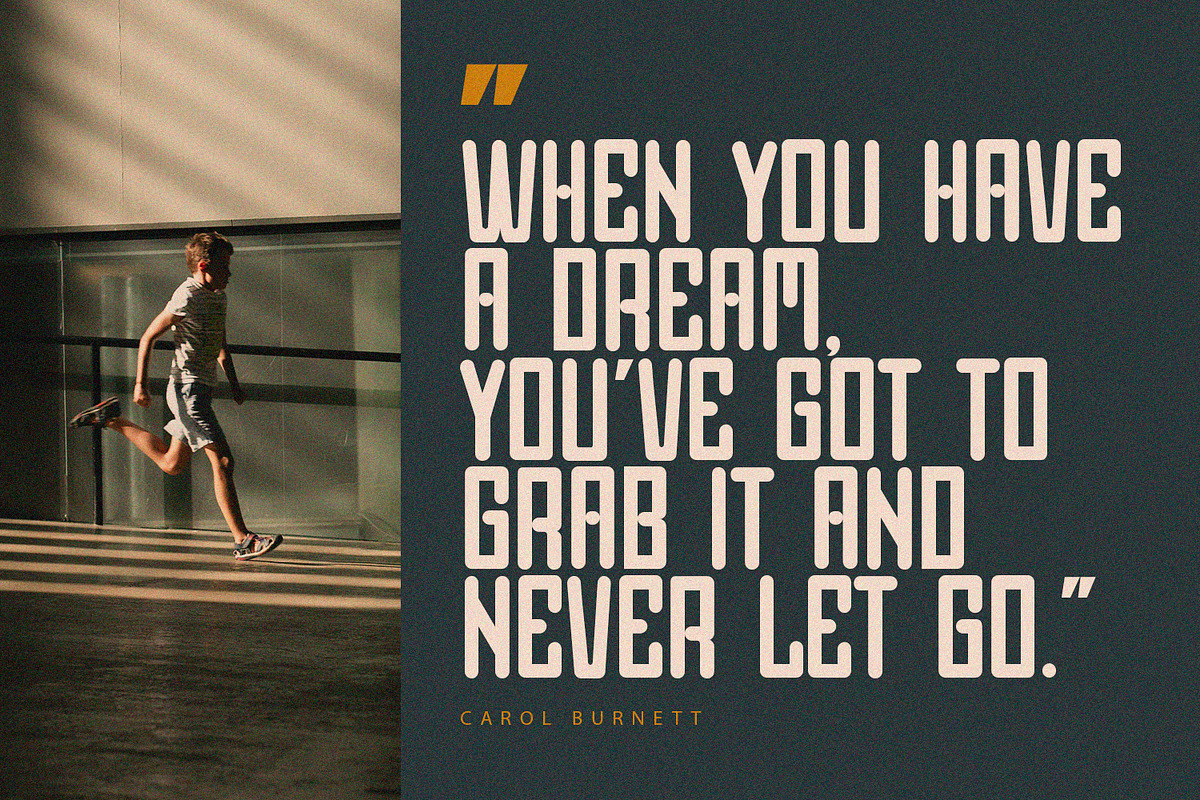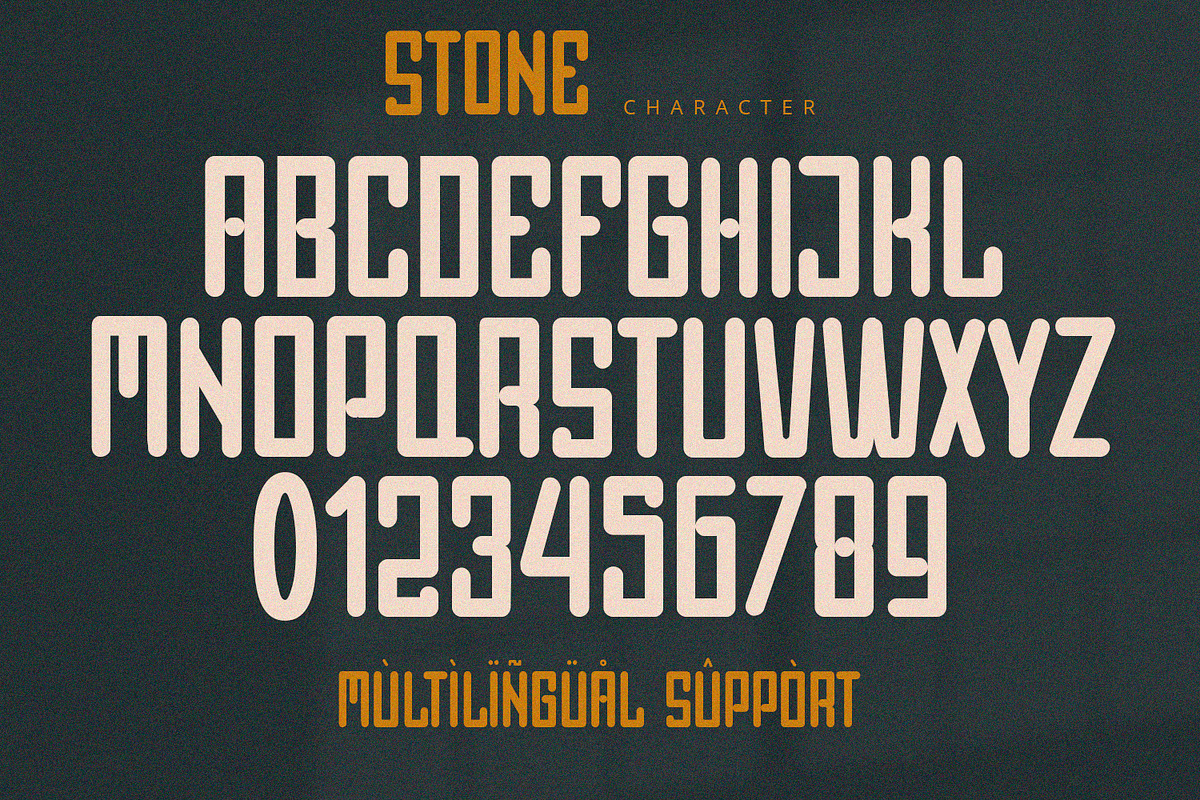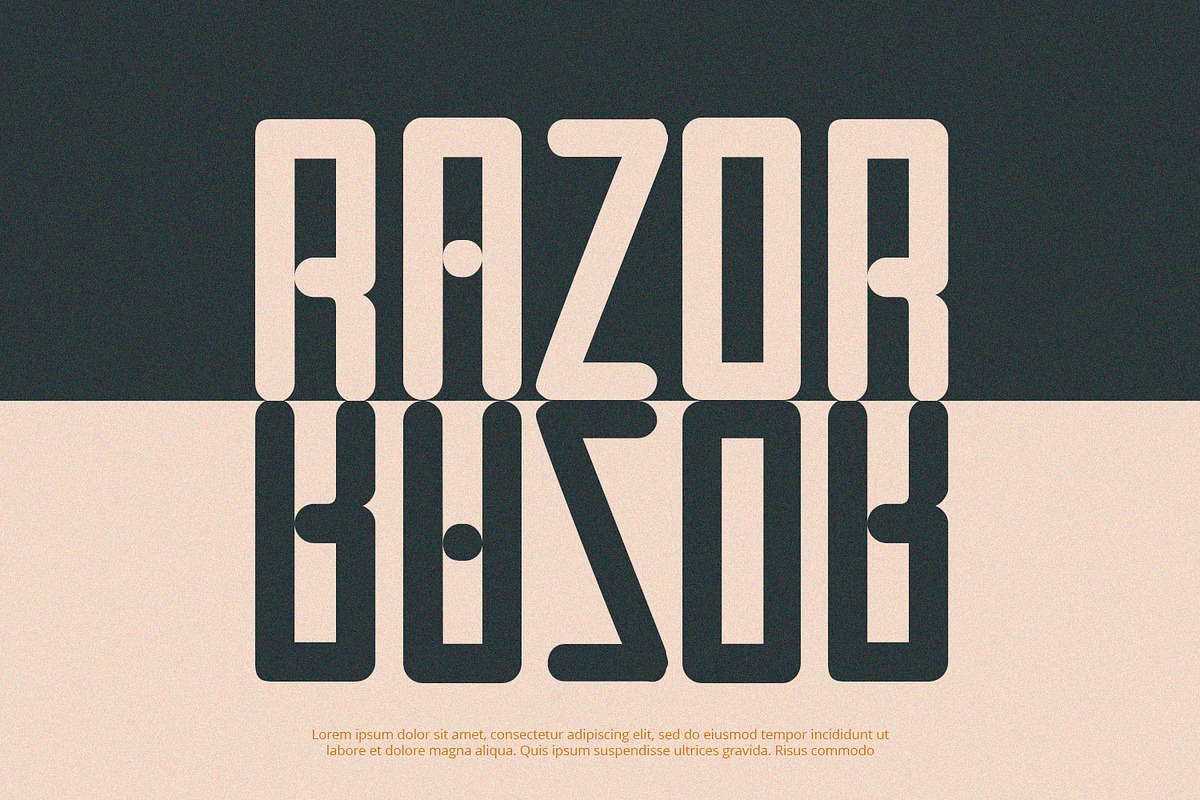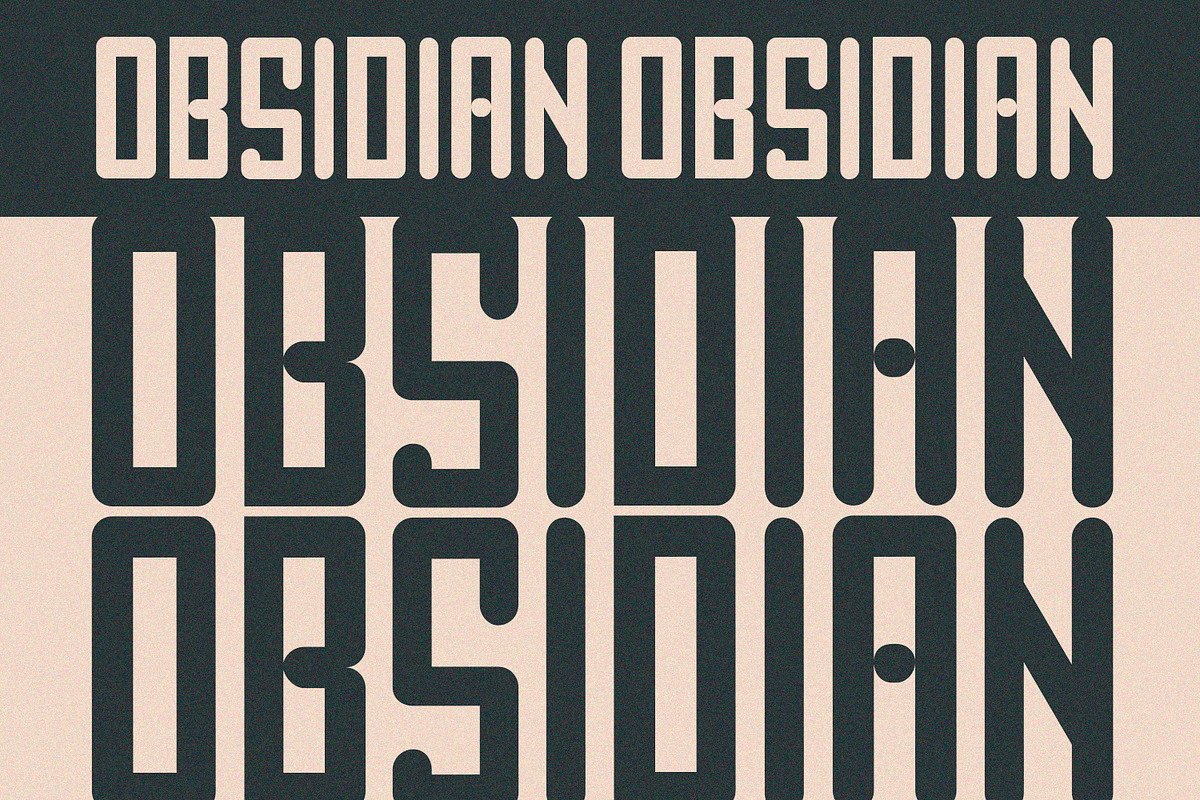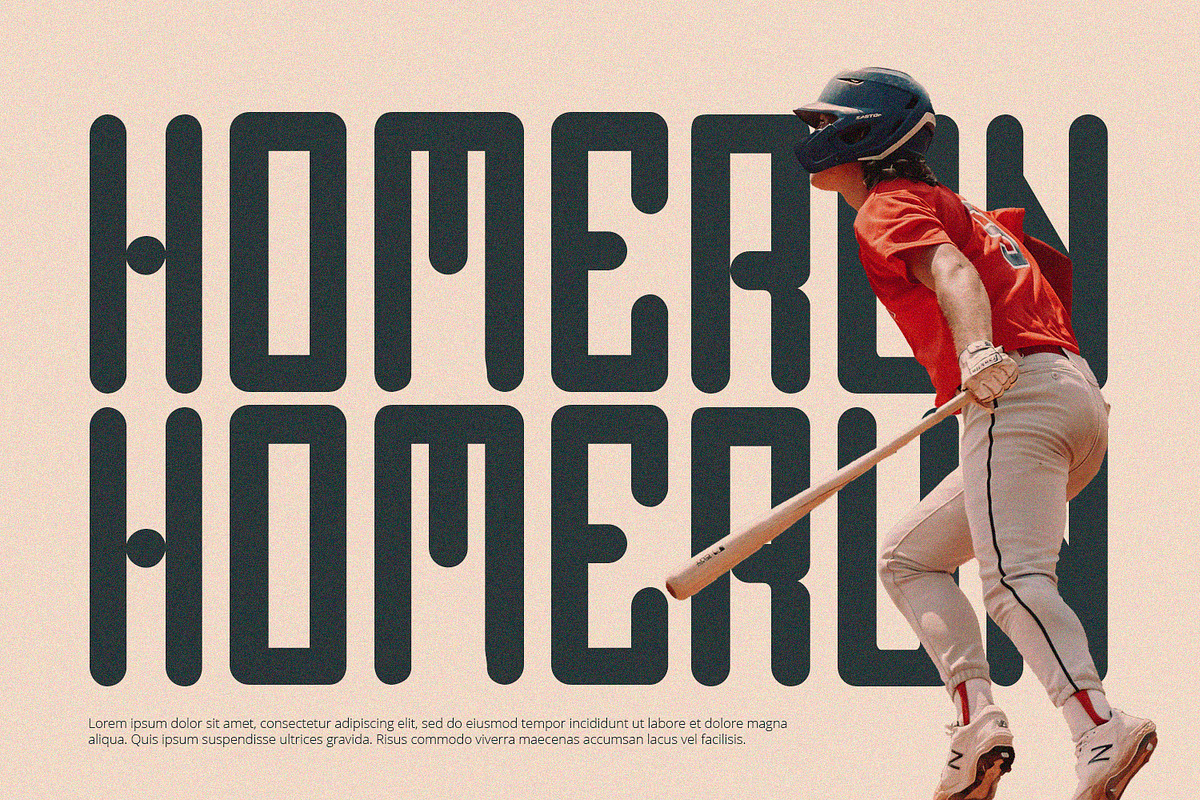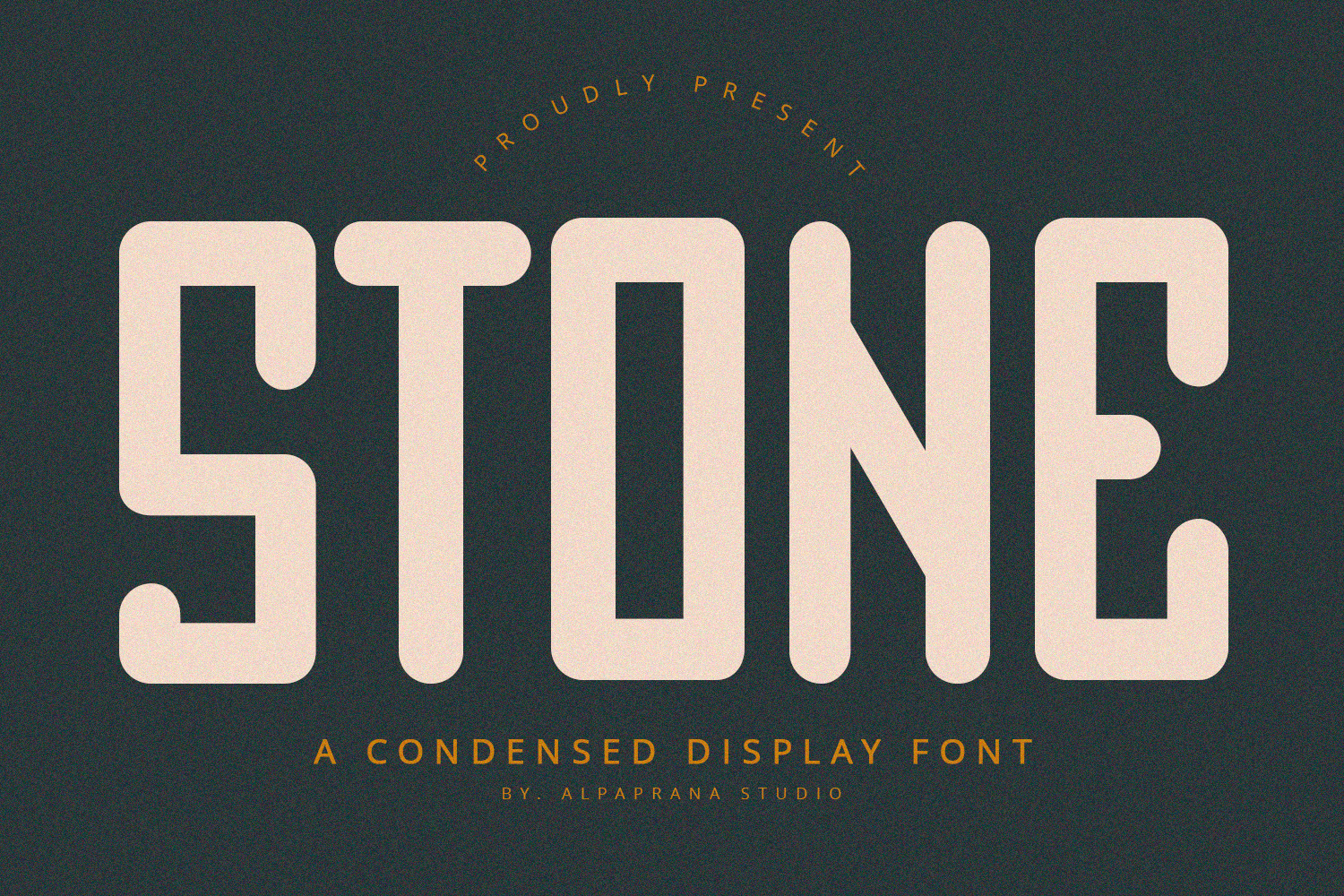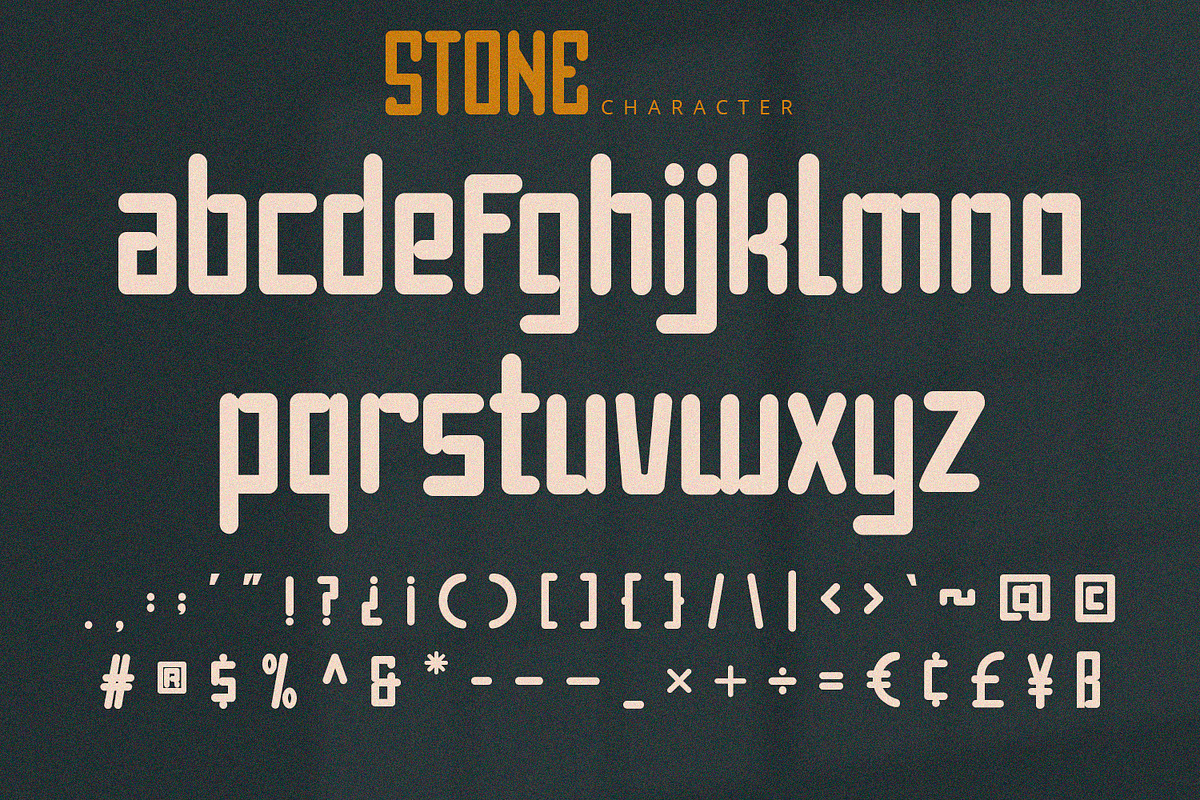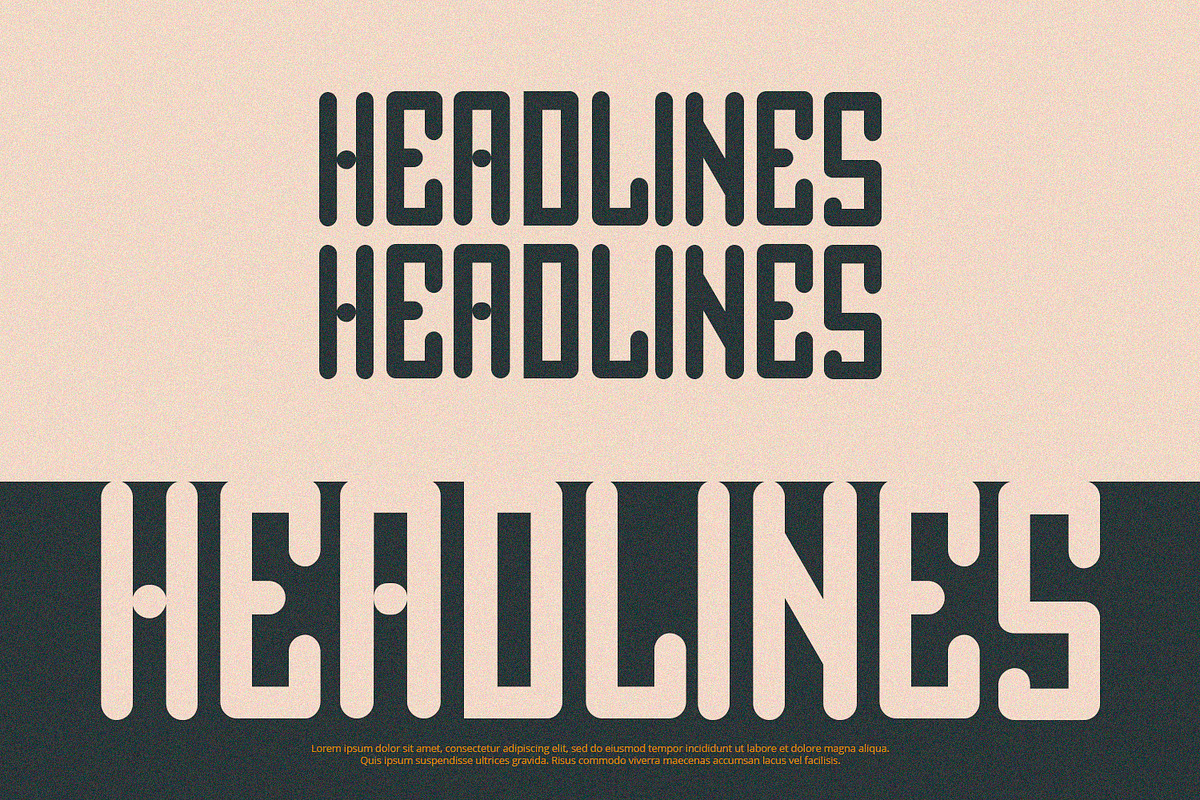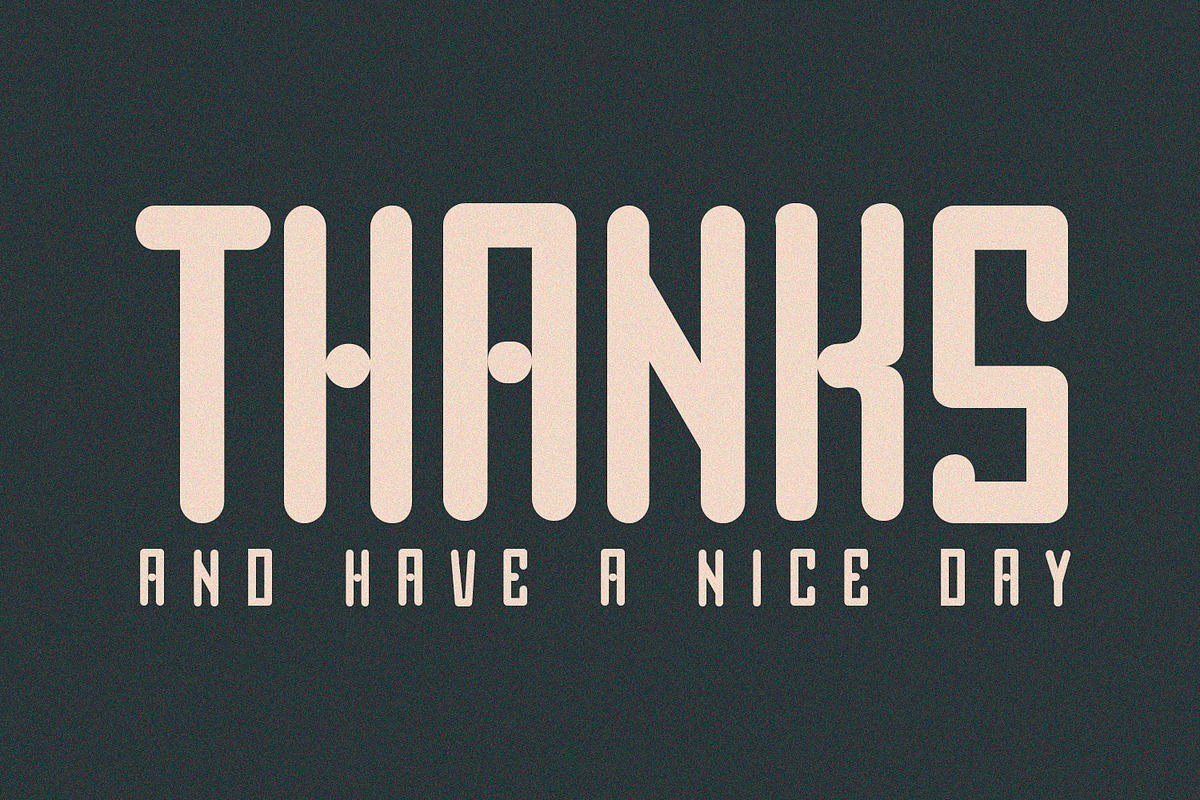
Stone - Condensed Font
Stone is condensed display font with bold and modern feels. It will be perfectly used for Branding, Logo Design, Lettering, Logotype, Clothing, Poster, magazine, packaging, posters, shopping bags, t-shirts, book covers, photography, special events and other design project.